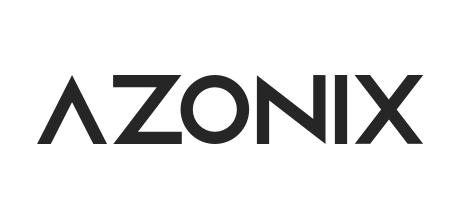
Azonix
By Mixo (mixofx)
Azonix is a modern sans-serif typeface. This typeface consists of bold geometric upper case letters, numbers and punctuation (symbols).